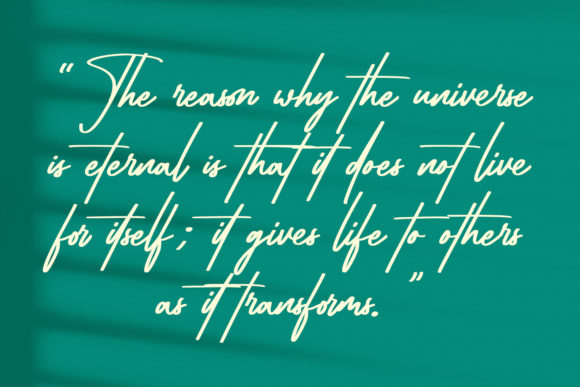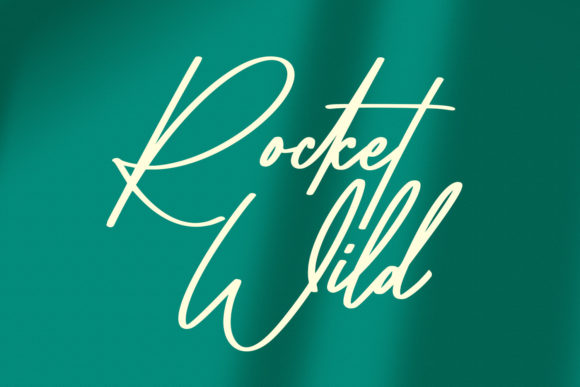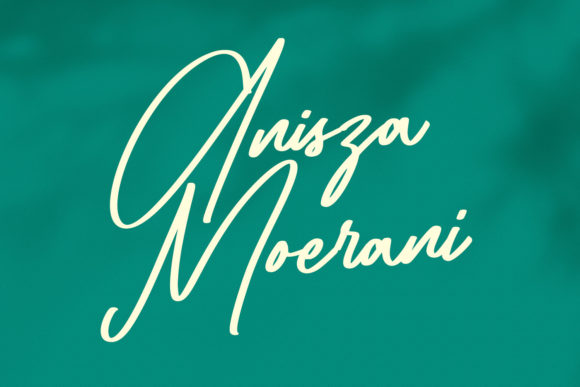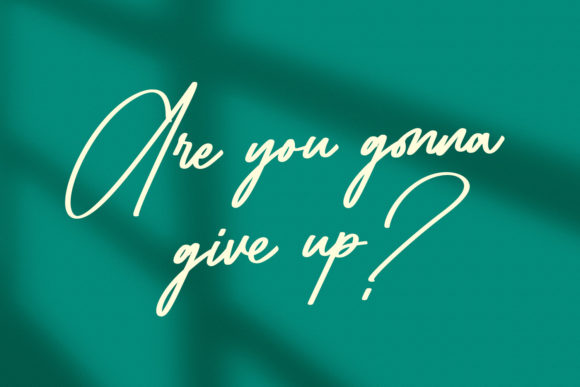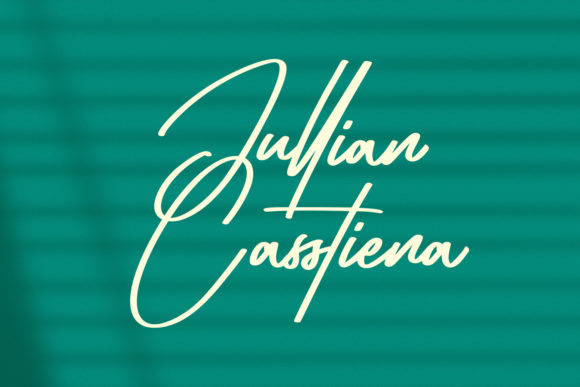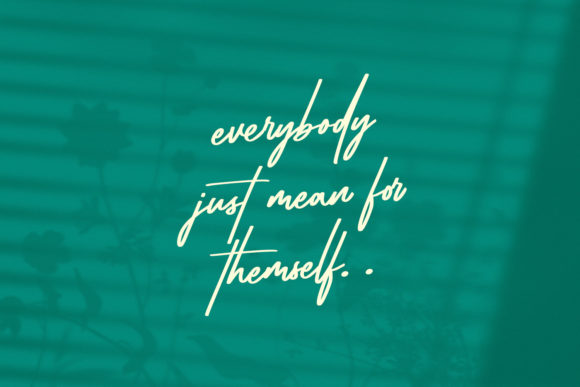
Blywoofs Font: Elevate Your Designs with a Fancy Signature Script
In the world of typography, fonts play a crucial role in conveying the tone and personality of a design. For designers and crafters looking to add a touch of elegance and sophistication to their work, Blywoofs font is an excellent choice. This fancy signature script font is perfect for creating stunning logos, social media graphics, movie titles, book titles, and more.
What is Blywoofs Font?
Blywoofs is a beautifully crafted script font that mimics the look of regular felt-tip strokes. Its unique, hand-drawn style gives it a personal and distinctive feel, making it ideal for designs that require a touch of personality. The font’s signature style is reminiscent of handwritten scripts, but with a level of precision and consistency that makes it perfect for digital and print applications.
Key Features of Blywoofs Font
- Fancy Signature Script: Blywoofs font boasts a stylish, cursive script that adds a level of sophistication to any design.
- Felt-Tip Stroke: The font’s regular felt-tip stroke gives it a unique, hand-drawn feel that’s perfect for creating personalized designs.
- Versatile: Blywoofs font can be used for a wide range of applications, from logo design and social media graphics to movie titles, book titles, and more.
- Elegant and Sophisticated: The font’s elegant style makes it perfect for designs that require a level of refinement and poise.
Uses of Blywoofs Font
Blywoofs font is an incredibly versatile typeface that can be used in a variety of design applications. Here are some ideas to get you started:
- Logo Design: Create a stunning logo for your business or brand with Blywoofs font. Its unique style will help you stand out from the competition.
- Social Media Graphics: Use Blywoofs font to create eye-catching social media graphics that showcase your personality and brand.
- Movie and Book Titles: Add a touch of elegance to your movie and book titles with Blywoofs font. Its sophisticated style is perfect for creating eye-catching title sequences.
- Stationery and Packaging: Use Blywoofs font to create beautiful stationery, packaging, and branding materials that reflect your personality and style.
Tips for Using Blywoofs Font
To get the most out of Blywoofs font, here are some tips to keep in mind:
- Experiment with Sizes: Blywoofs font looks great in a variety of sizes, from small and delicate to large and bold. Experiment with different sizes to find the one that works best for your design.
- Play with Colors: The font’s elegant style looks great in a range of colors, from bold and bright to soft and pastel. Experiment with different colors to find the one that works best for your design.
- Mix and Match: Don’t be afraid to mix and match Blywoofs font with other fonts and design elements to create a unique and eye-catching design.
In conclusion, Blywoofs font is a stunning fancy signature script font that’s perfect for designers and crafters looking to add a touch of elegance and sophistication to their work. Its unique, hand-drawn style and versatile nature make it ideal for a wide range of design applications. With Blywoofs font, you can create stunning logos, social media graphics, movie titles, book titles, and more. So why wait? Download Blywoofs font today and start creating your own stunning designs!